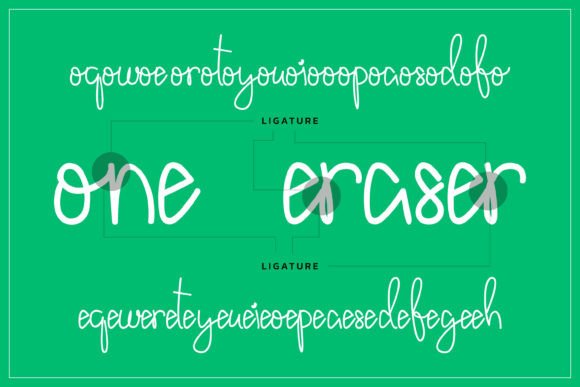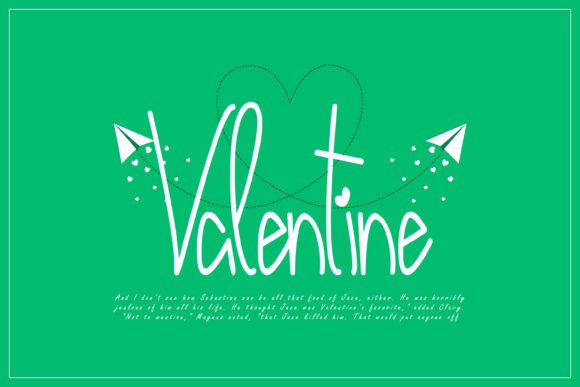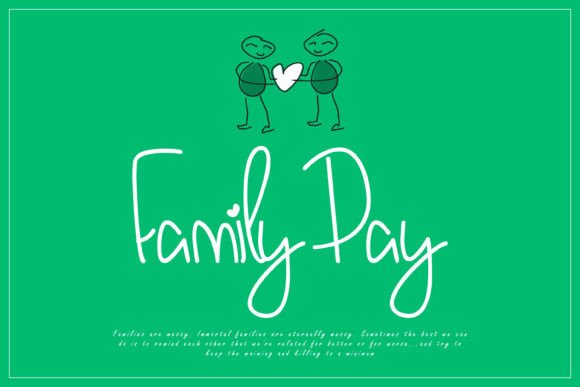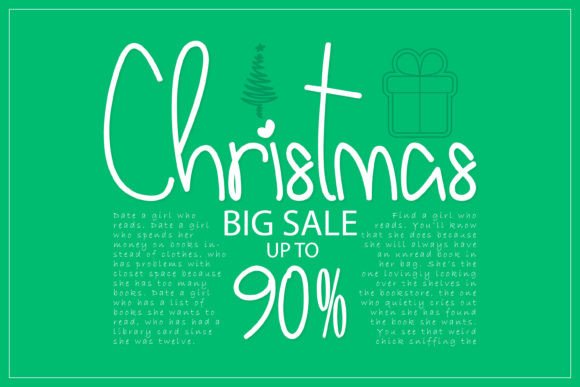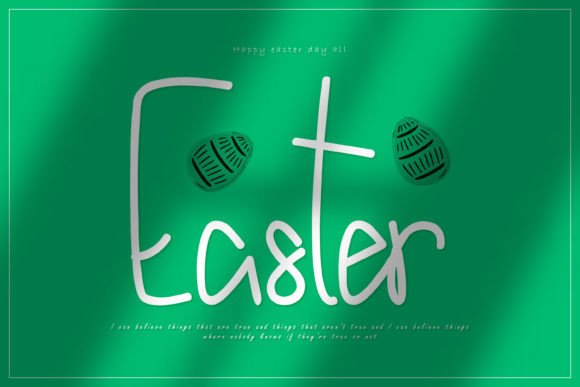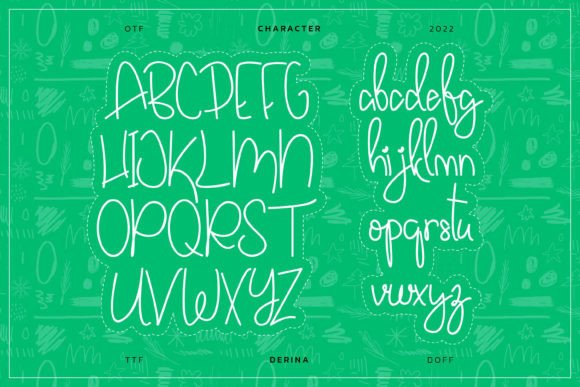
Introduction to Derina Font
As a designer, have you ever stared at a blank page, wondering how to bring your creative vision to life? I’m sure we’ve all been there at some point. For me, it was the moment I discovered the perfect font for a project – the Derina Font. Its sweet and delicate script style instantly captured my attention, and I knew I had to learn more. With its natural and unique flair, the Derina Font is an incredibly versatile design resource that can elevate any creative project.
What sets the Derina Font apart is its high quality and flexibility. Whether you’re working on a branding project or designing a beautiful invitation, this font is sure to make your designs stand out. Plus, with a transparent background, you can easily incorporate it into your designs without worrying about any unwanted background noise. And the best part? You can download the Derina Font for free, making it an invaluable addition to any designer’s toolkit.
Key Features of Derina Font
- High-quality design resource suitable for creative projects, including invitations, posters, and social media graphics.
- Unique characteristics include elegant, cursive script and ornate flourishes, perfect for adding a touch of sophistication to any design project.
Honest Review: Derina Font
I recently had the chance to experiment with the Derina Font, a design resource that offers a unique and elegant look. As a designer, I’m always on the lookout for high-quality fonts that can elevate my creative projects.
Here are some things that work well with the Derina Font:
- ✨ Elegant and refined design, perfect for formal or sophisticated projects
- ✨ Supports both Latin and Cyrillic scripts, making it a versatile option
- ⚠️ Limited font styles and variations, which may not be ideal for designers who prefer more options
- ⚠️ May not be suitable for projects that require a bold or dramatic look
Overall, I found the Derina Font to be a solid addition to my design arsenal. While it may not be perfect, its elegant design and transparent background make it a great choice for a wide range of creative projects. With a little creativity, I’m sure you can find ways to make the most of this high-quality design resource.
Tips for Getting the Most Out of Derina Font
For the best results, use Derina Font in conjunction with a clean and simple design aesthetic. You can also experiment with different font sizes and colors to create visual interest. Additionally, consider using Derina Font in combination with other design elements, such as images or graphics, to create a unique and eye-catching design.
Derina Font is perfect for a variety of creative projects, including wedding invitations, business cards, and menus. Its elegant and sophisticated style makes it ideal for formal events and professional applications. You can also use Derina Font for personal projects, such as scrapbooking or journaling.